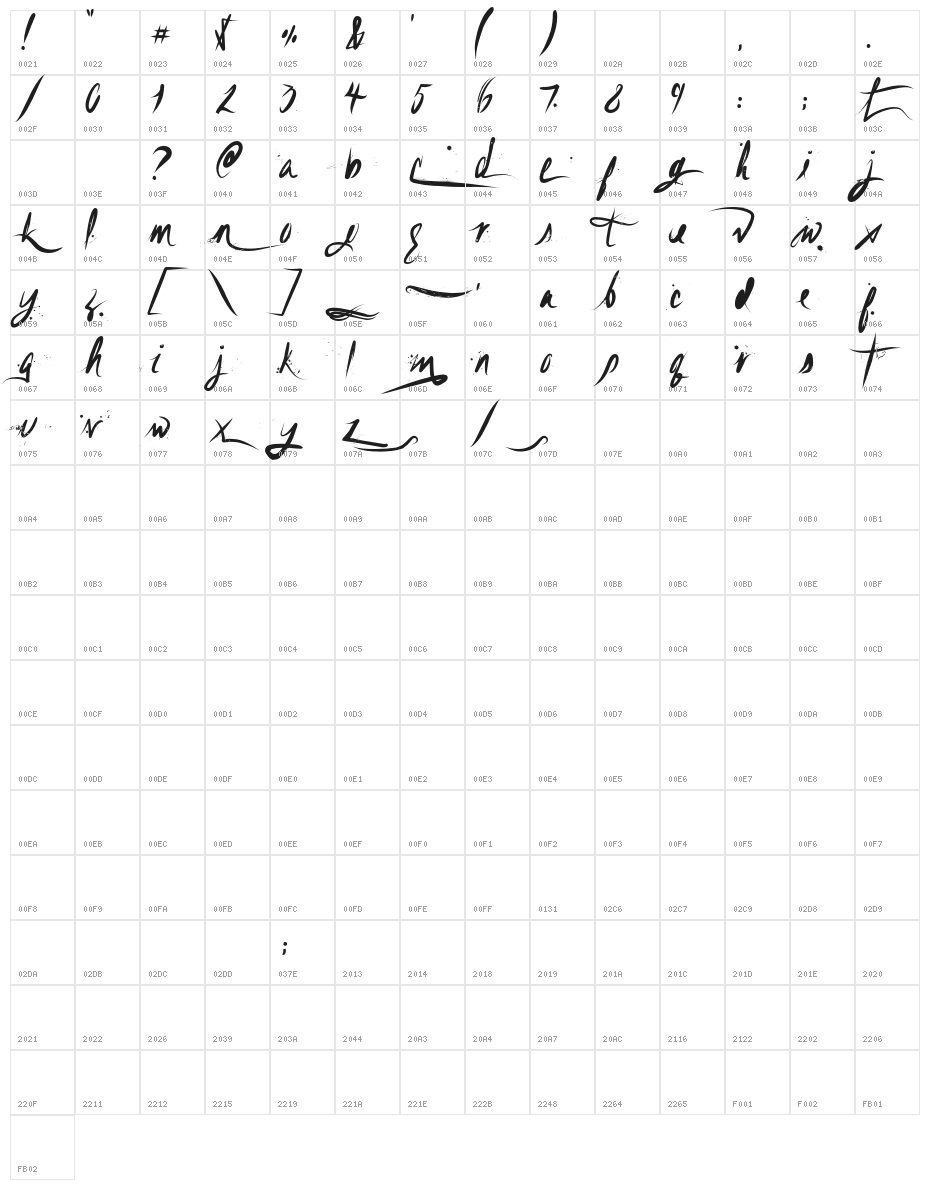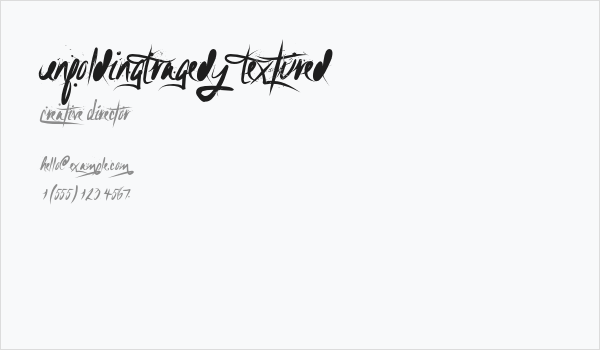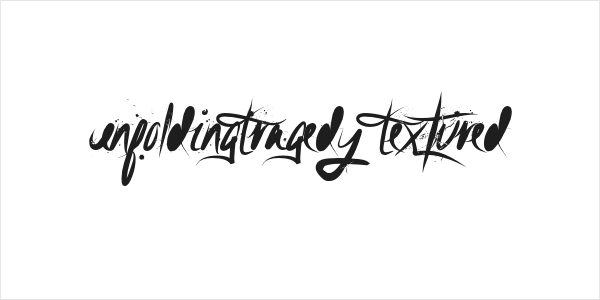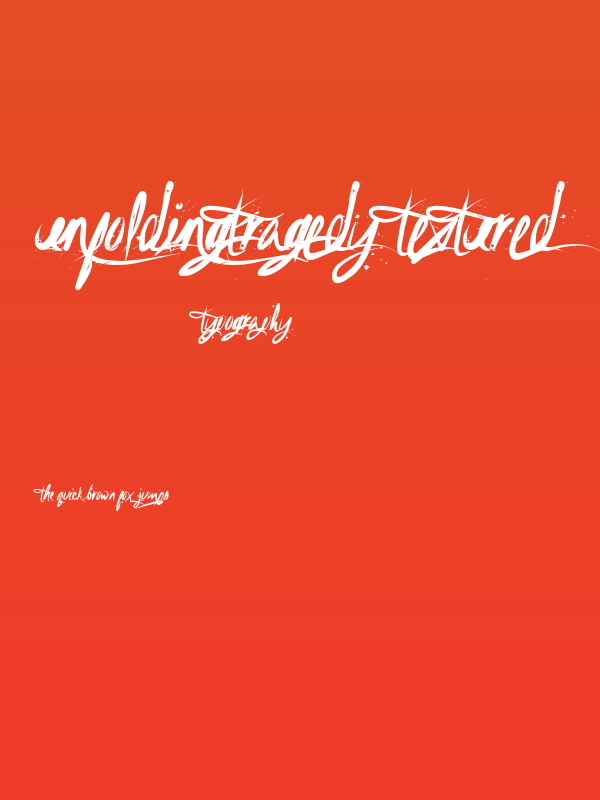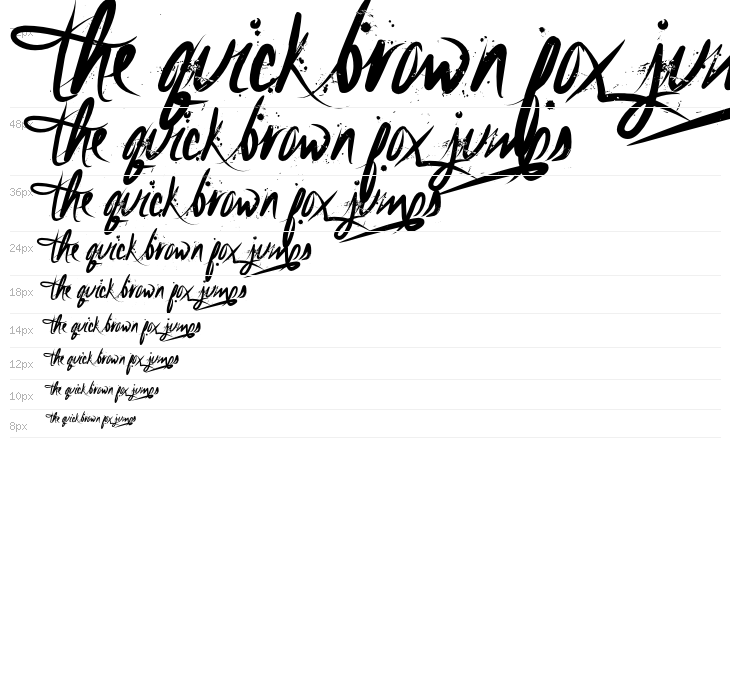
UnfoldingTragedy-Textured Font
| Stile generale | Modern, Artistic |
| Caso d'uso | Headlines, Logos, Artistic projects |
| Progetti proposti | Ideal for album covers, posters, streetwear branding, and artistic projects requiring a bold statement. |